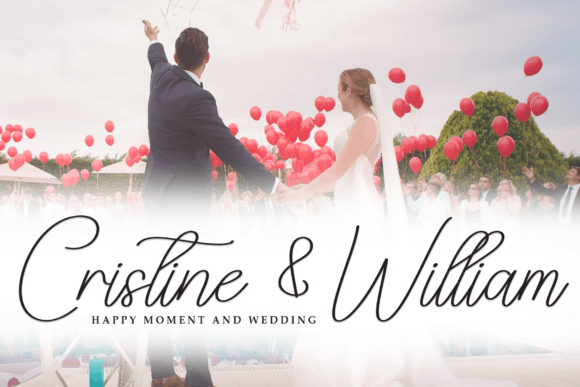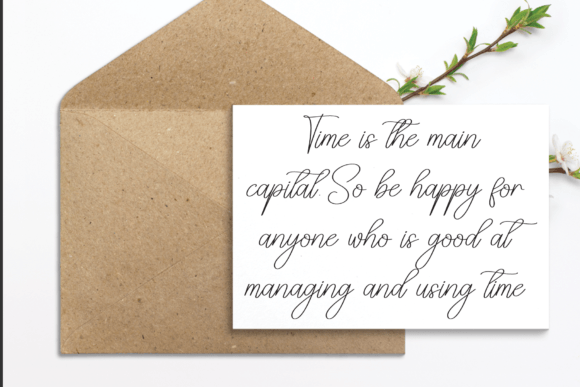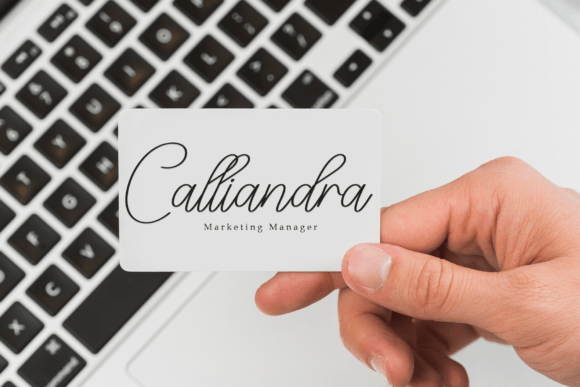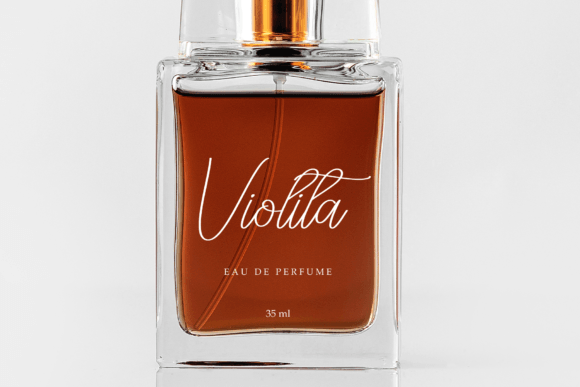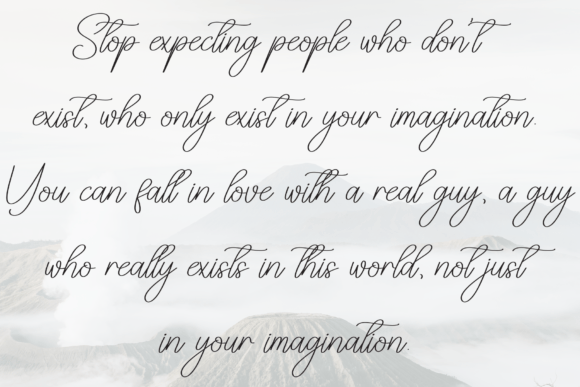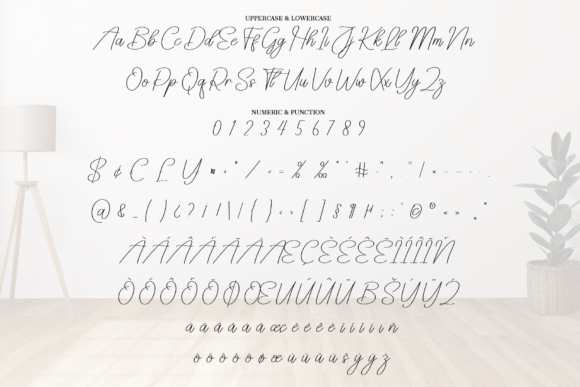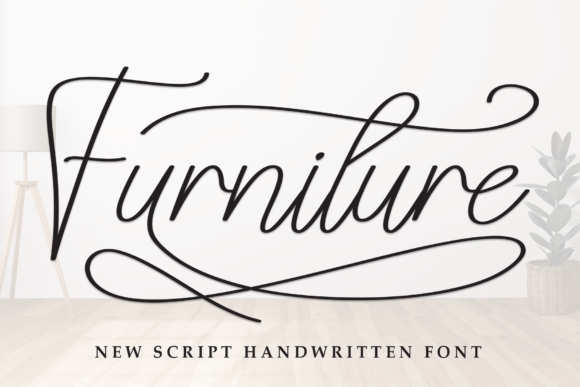
Introducing Furniture Font: Elevate Your Designs with a Touch of Elegance
Are you tired of using the same old fonts in your designs? Look no further! Furniture Font is here to revolutionize the way you create. Our latest style letters are perfect for a variety of applications, from wall displays to wedding invitations, social media post logos, advertisements, product packaging, product designs, labels, photography, watermarks, invitations, stationery, and any project that requires tasteful handwriting.
What Sets Furniture Font Apart?
Our font is designed to provide you with an extraordinary experience. With Furniture Font, you’ll have access to a unique and creative product that will take your designs to the next level. The font is carefully crafted to ensure that it stands out from the crowd, making it perfect for designers and crafters who want to add a touch of elegance to their work.
Encoded PUA Character for Easy Access
Our font is encoded with PUA (Private Use Area) characters, which means you can access all the characters without needing additional design software. This feature makes it easy to use Furniture Font in any project, without the need for complicated workarounds.
With Furniture Font, the design possibilities are endless. Here are just a few ideas to get you started:
- Wall displays: Create stunning wall art with custom quotes, lyrics, or phrases.
- Wedding invitations: Add a touch of elegance to your wedding stationery.
- Social media post logos: Elevate your social media presence with custom logos and graphics.
- Advertisements: Create eye-catching ads with unique and stylish typography.
- Product packaging: Stand out in a crowded market with custom product packaging.
- Product designs: Add a personal touch to your product designs.
- Labels: Create custom labels for your products or branding materials.
- Photography: Add a touch of elegance to your photos with custom watermarks.
- Invitations: Create custom invitations for parties, events, or special occasions.
- Stationery: Elevate your stationery with stylish and unique typography.
Why Choose Furniture Font?
By choosing Furniture Font, you’ll gain access to a high-quality, unique, and creative product that will take your designs to the next level. Our font is perfect for:
- Designers: Looking for a unique font to add to their collection.
- Crafters: Wanting to create custom projects with a personal touch.
- Small business owners: Seeking to elevate their brand with stylish typography.
- Anyone: Looking for a high-quality font to enhance their designs.
Furniture Font is the perfect addition to any designer’s or crafter’s collection. With its unique and elegant style, it’s sure to elevate your designs and provide an extraordinary experience. Don’t miss out on this opportunity to take your designs to the next level. Get Furniture Font today and start creating stunning projects that showcase your creativity and style.